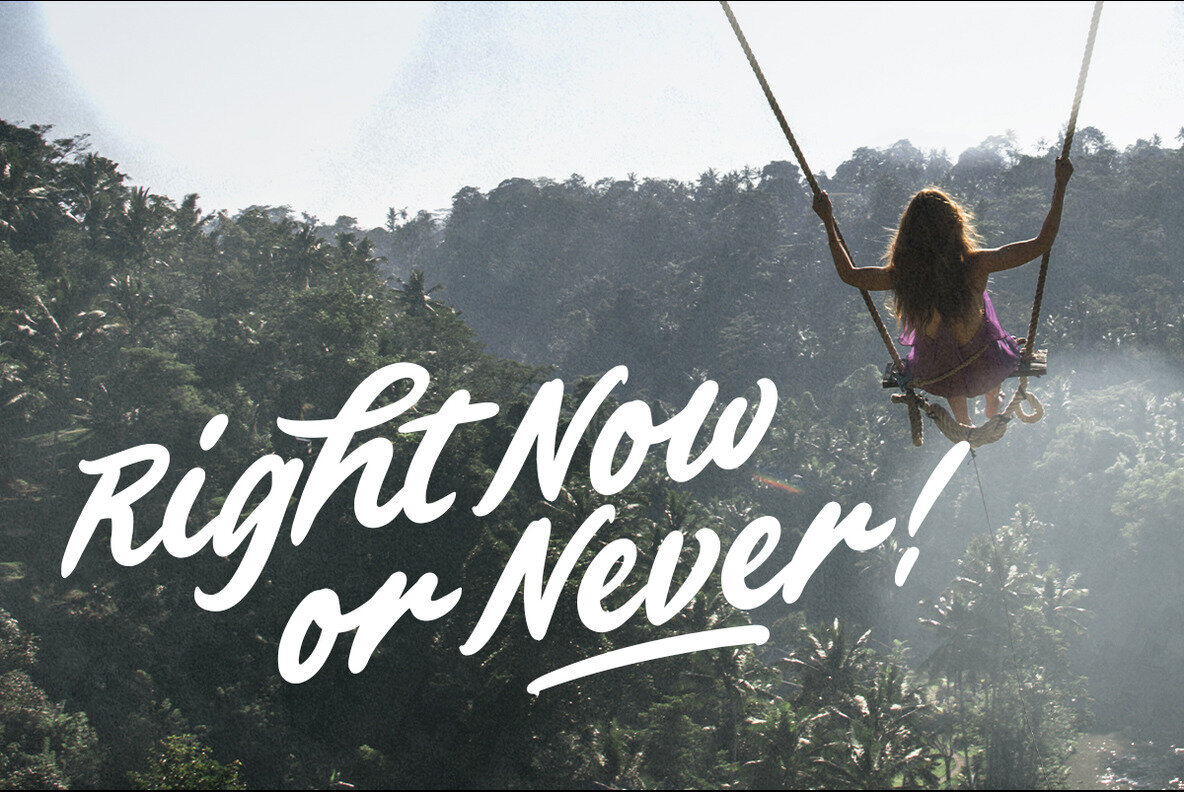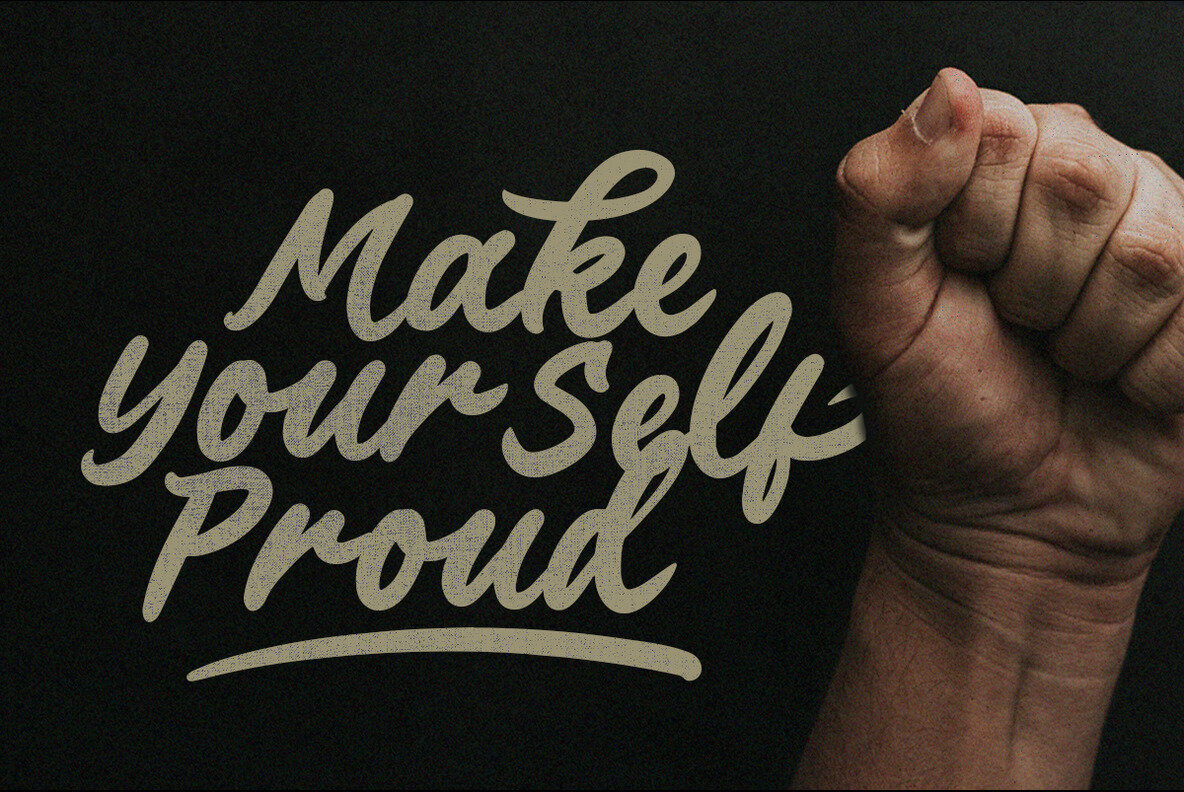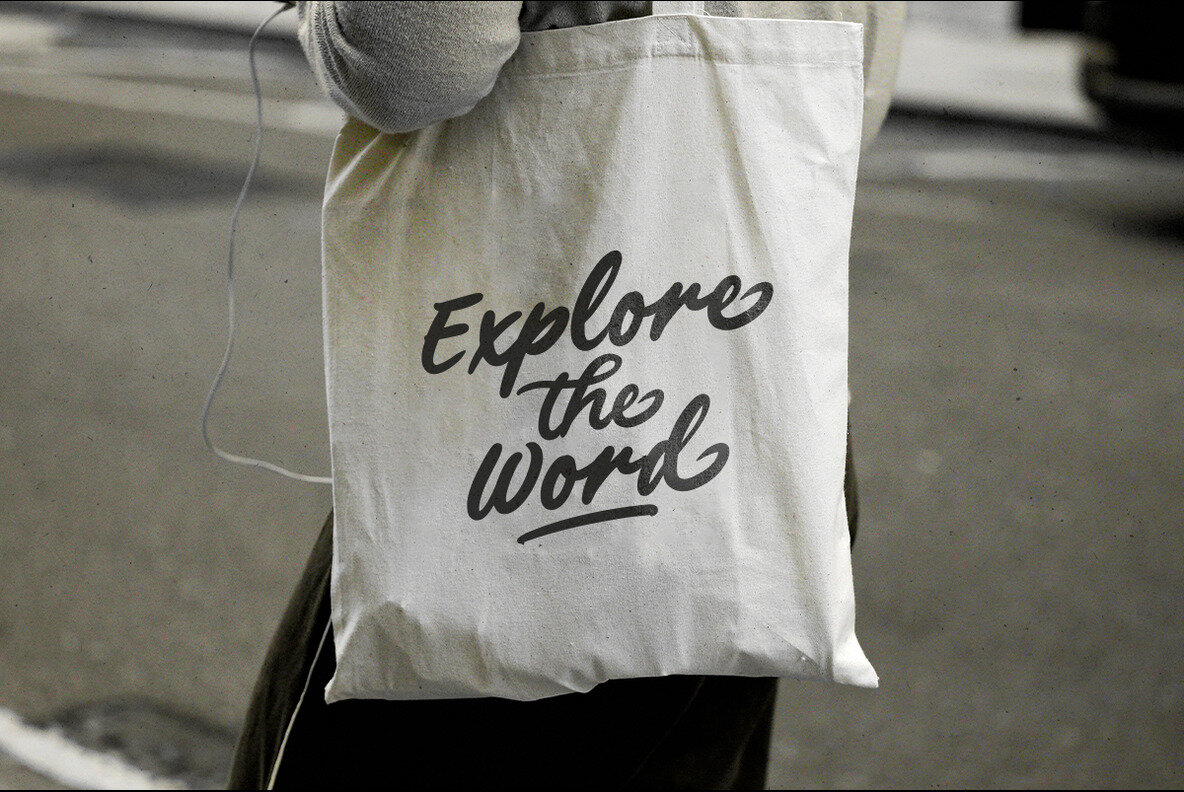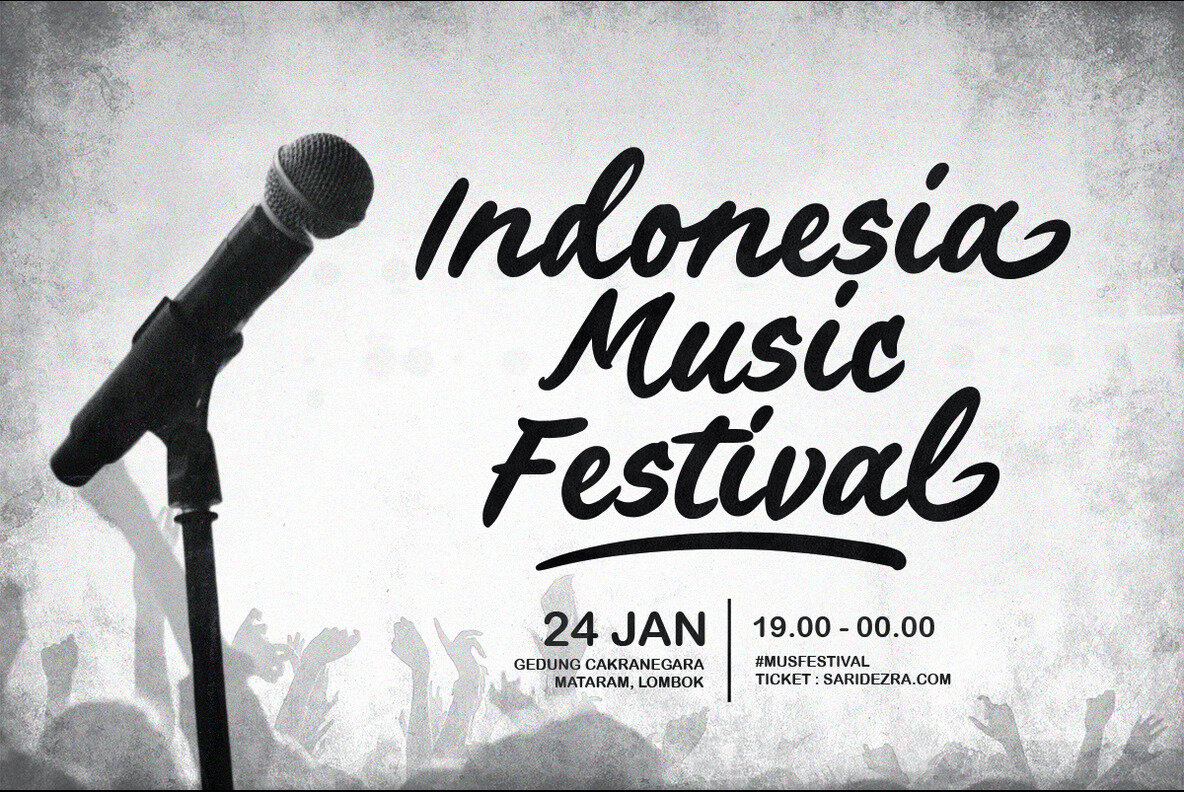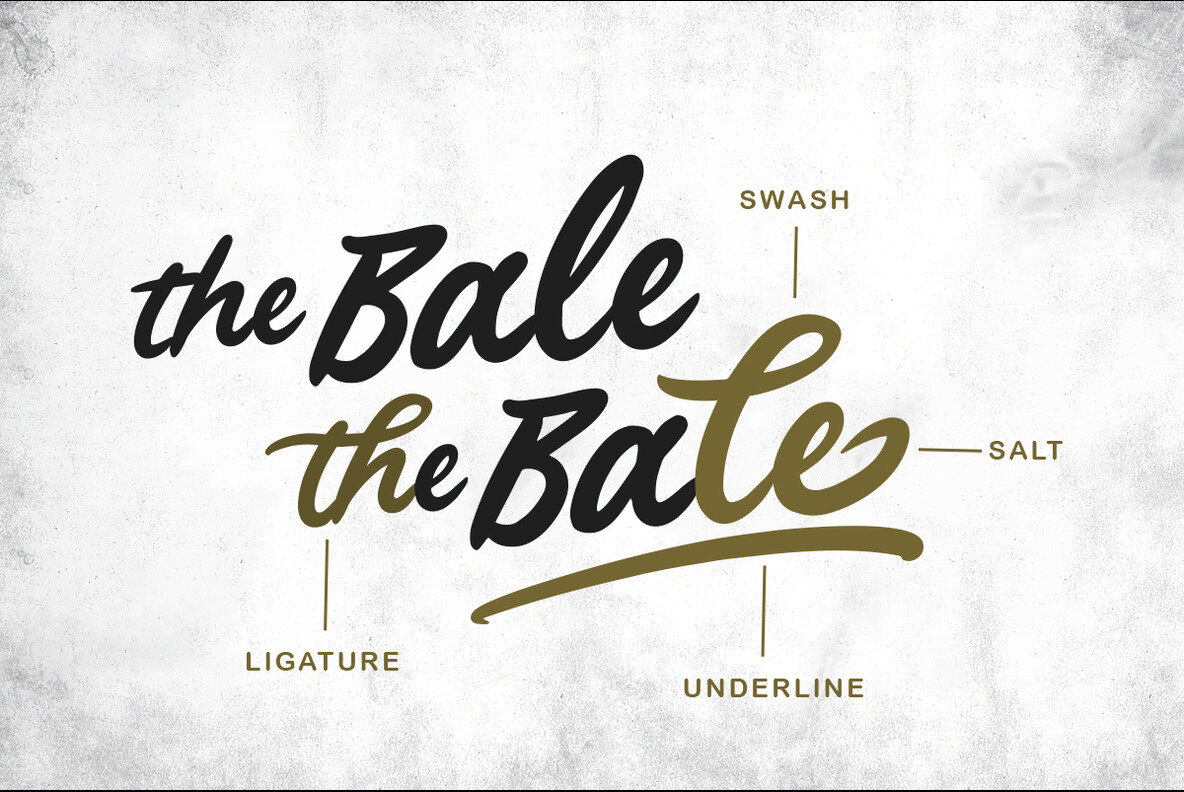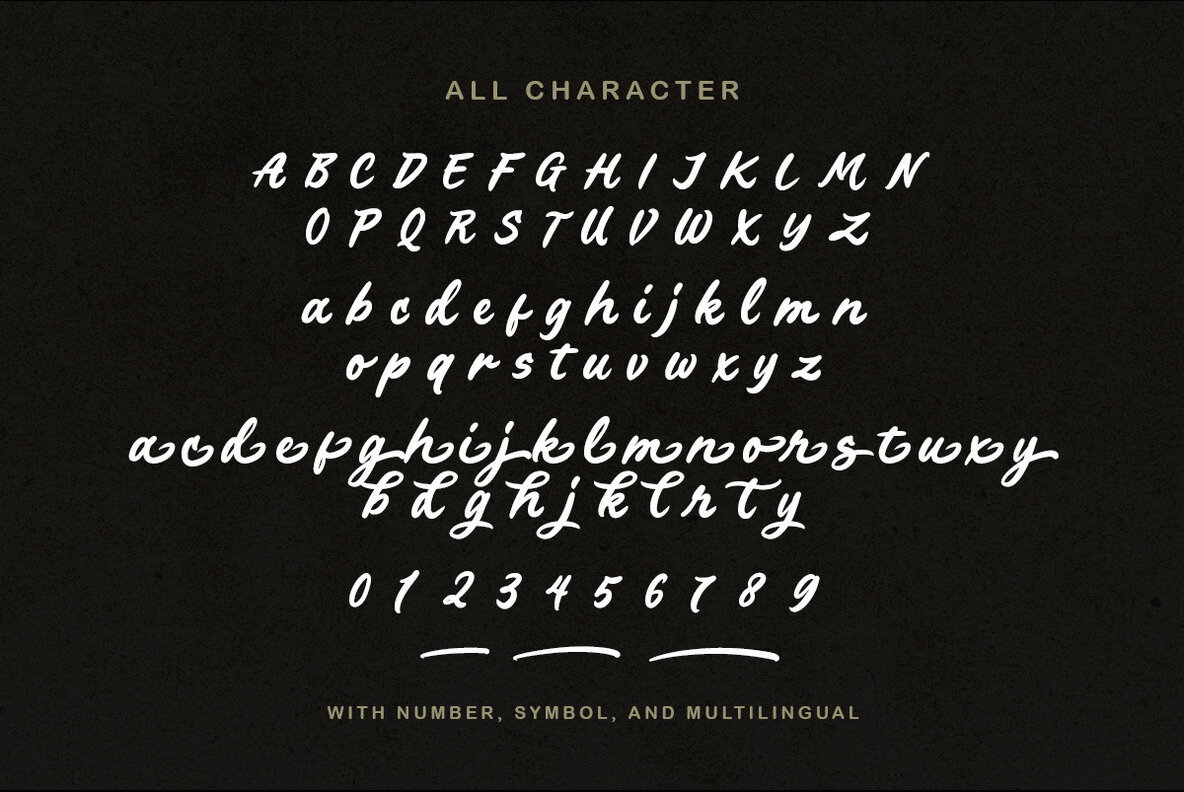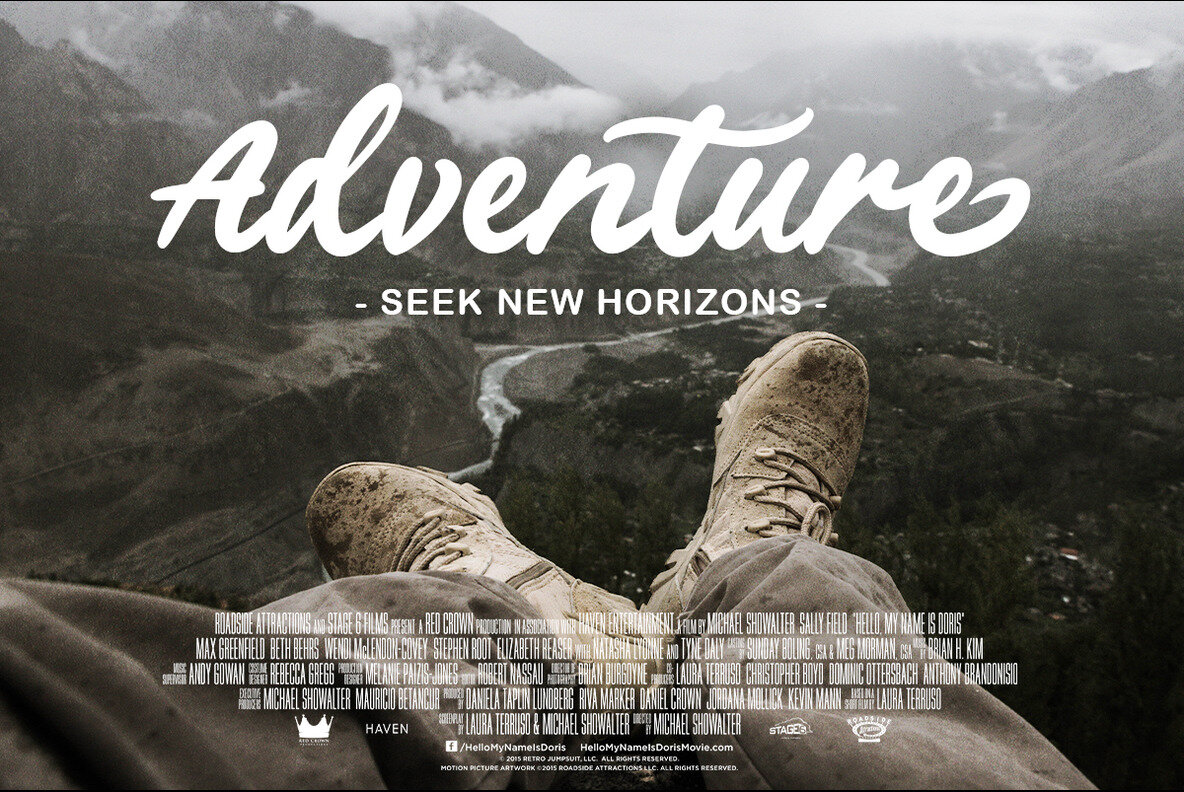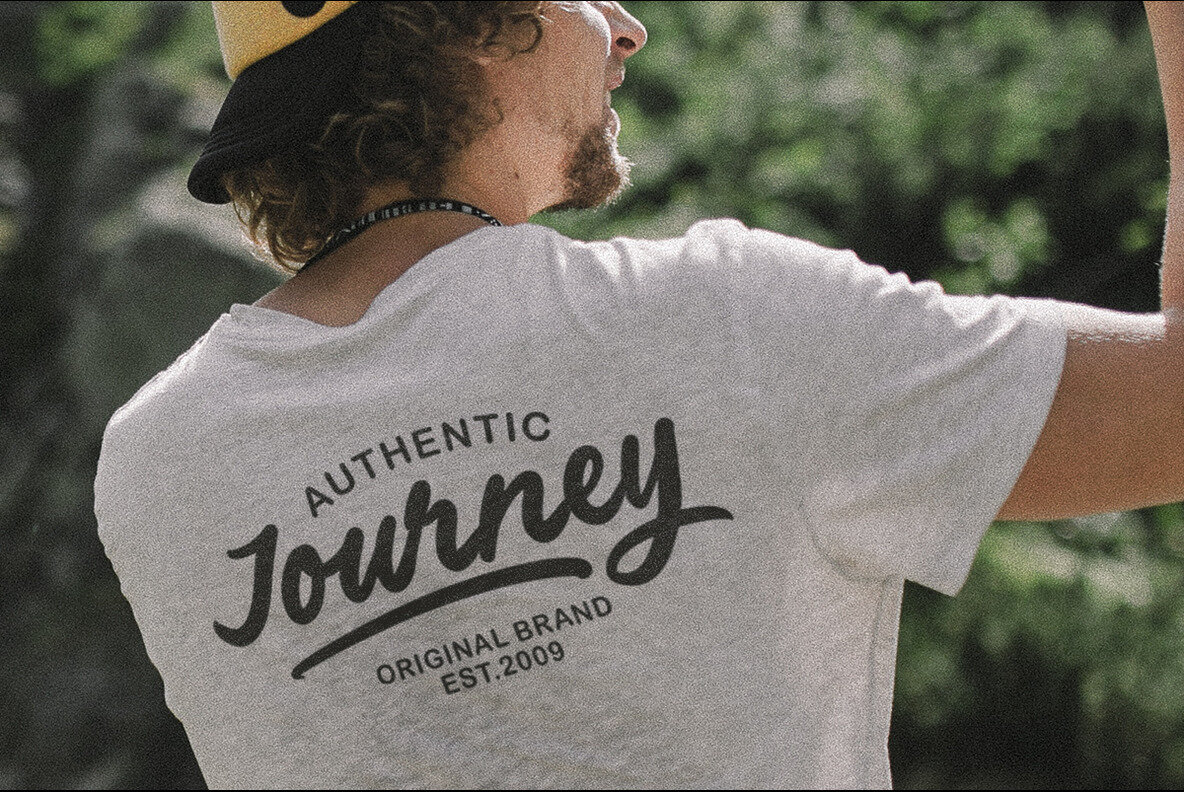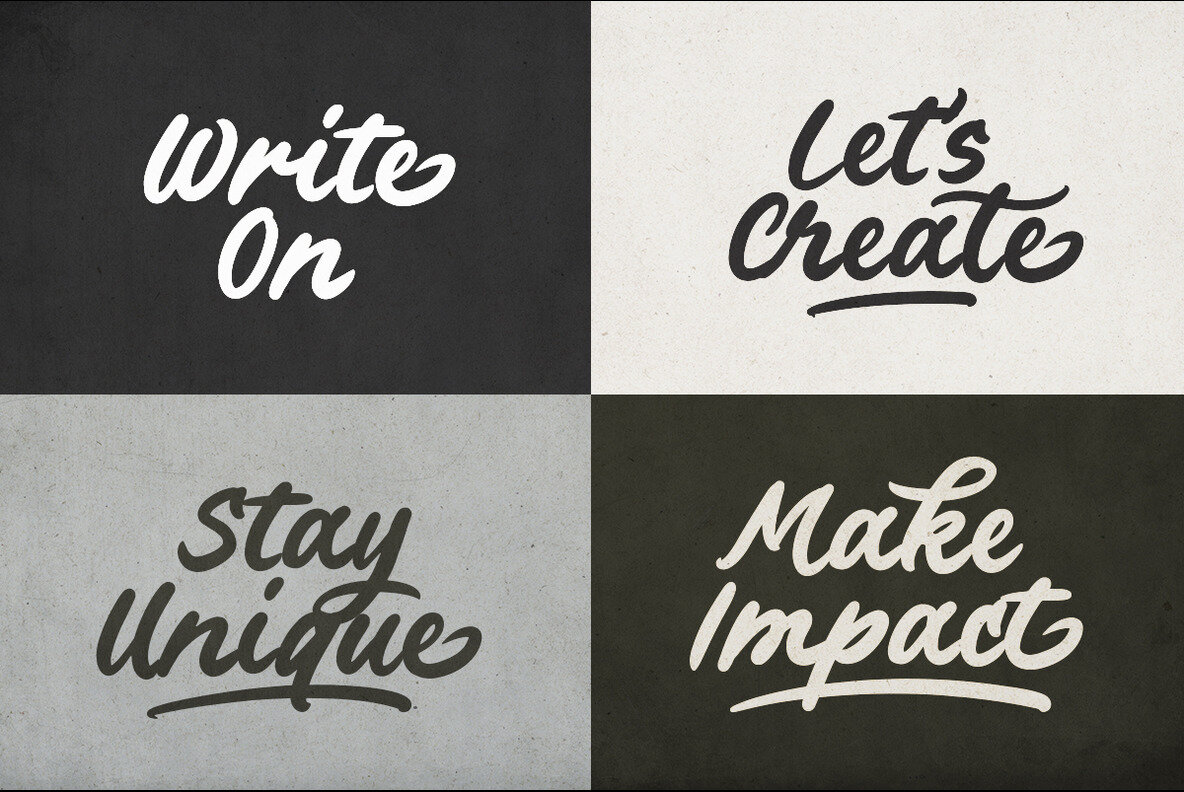
Slogan Mark Font
Slogan Mark Regular
Slogan Mark is a bold, handwritten script font ideal for logos and branding purposes. Its clean and readable style ensures it looks impressive on quotes and slogans. This versatile font includes stylistic alternates, swashes, ligatures, and underlines, adding a touch of elegance and uniqueness to your designs. Perfect for any creative project, Slogan Mark seamlessly combines simplicity and sophistication.
Additionally, Slogan Mark supports multiple languages, making it a great choice for international projects. Its distinct features provide designers with flexibility and aesthetic appeal, enhancing the impact of your message across various mediums. Upgrade your design toolkit with Slogan Mark to create striking, memorable visuals.